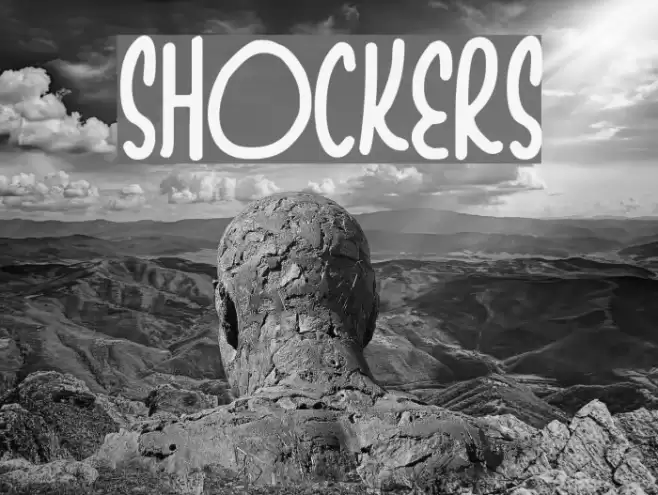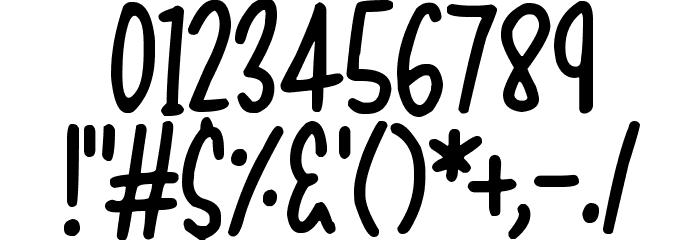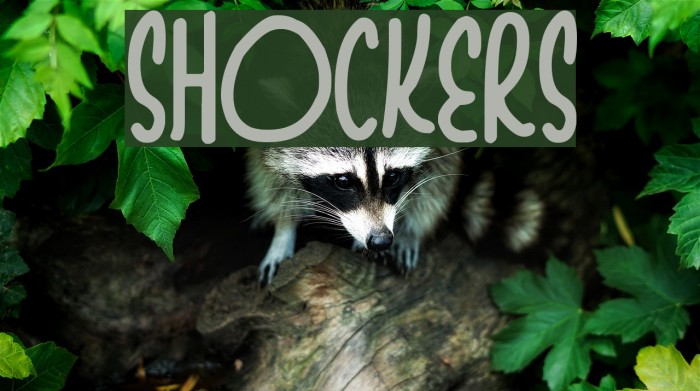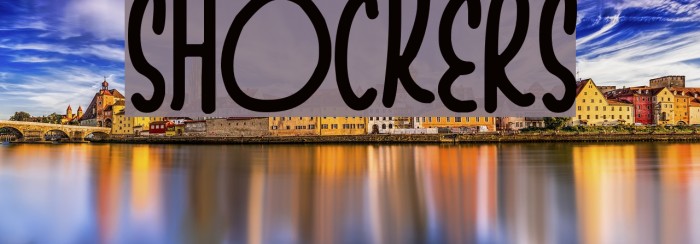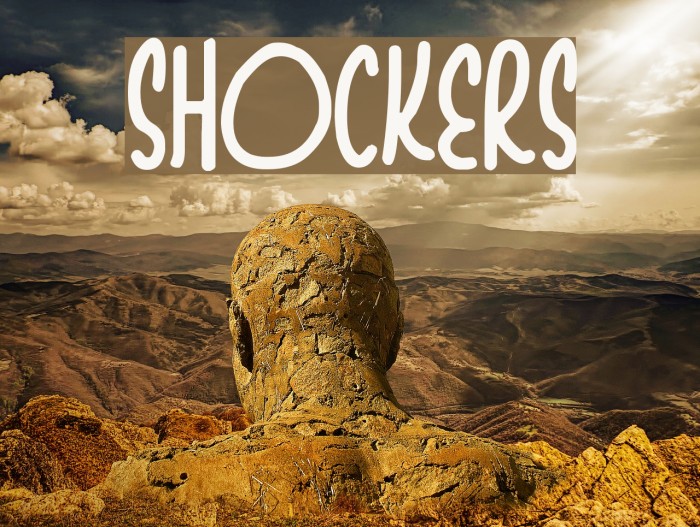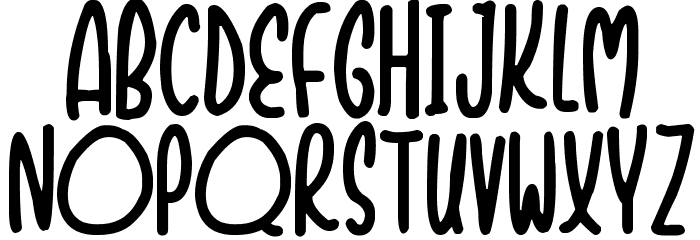
Shockers Font
Shockers Description
This font features a playful and bold handwritten style, characterized by its thick, rounded strokes and slightly irregular shapes. The letters are tall and narrow, giving a condensed appearance, yet they maintain a whimsical and friendly vibe. The uppercase and lowercase letters are distinct, with the lowercase having a slightly more relaxed form. Numbers and special characters follow the same playful aesthetic, ensuring consistency across all glyphs. The overall look is casual and approachable, making it suitable for projects that aim to convey a sense of fun and creativity.
A playful, bold handwritten font with thick, rounded strokes from Uncategorized fonts.
- Proposed Projects: Ideal for children's books, playful branding, greeting cards, and social media graphics.
- Overall Style: Playful